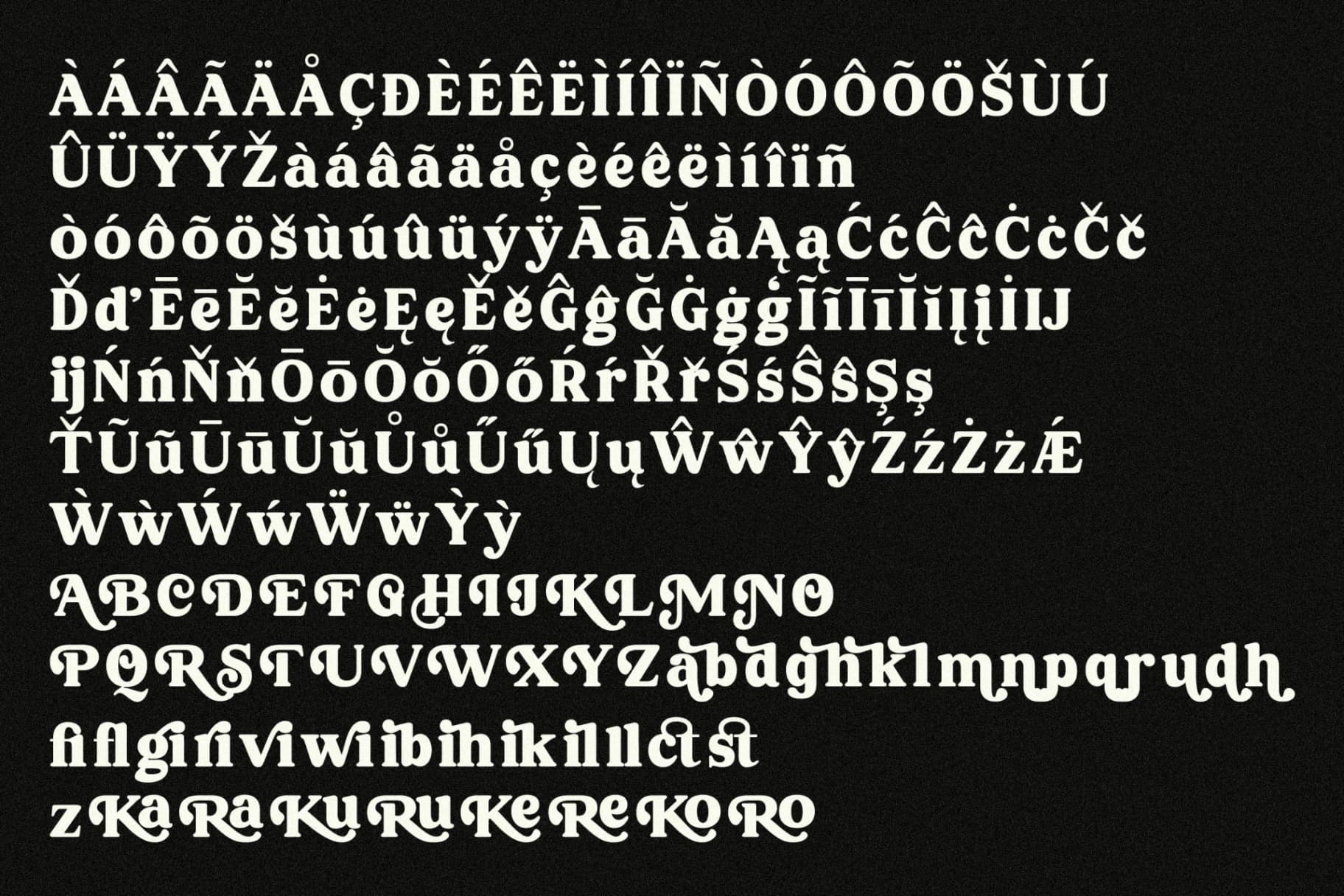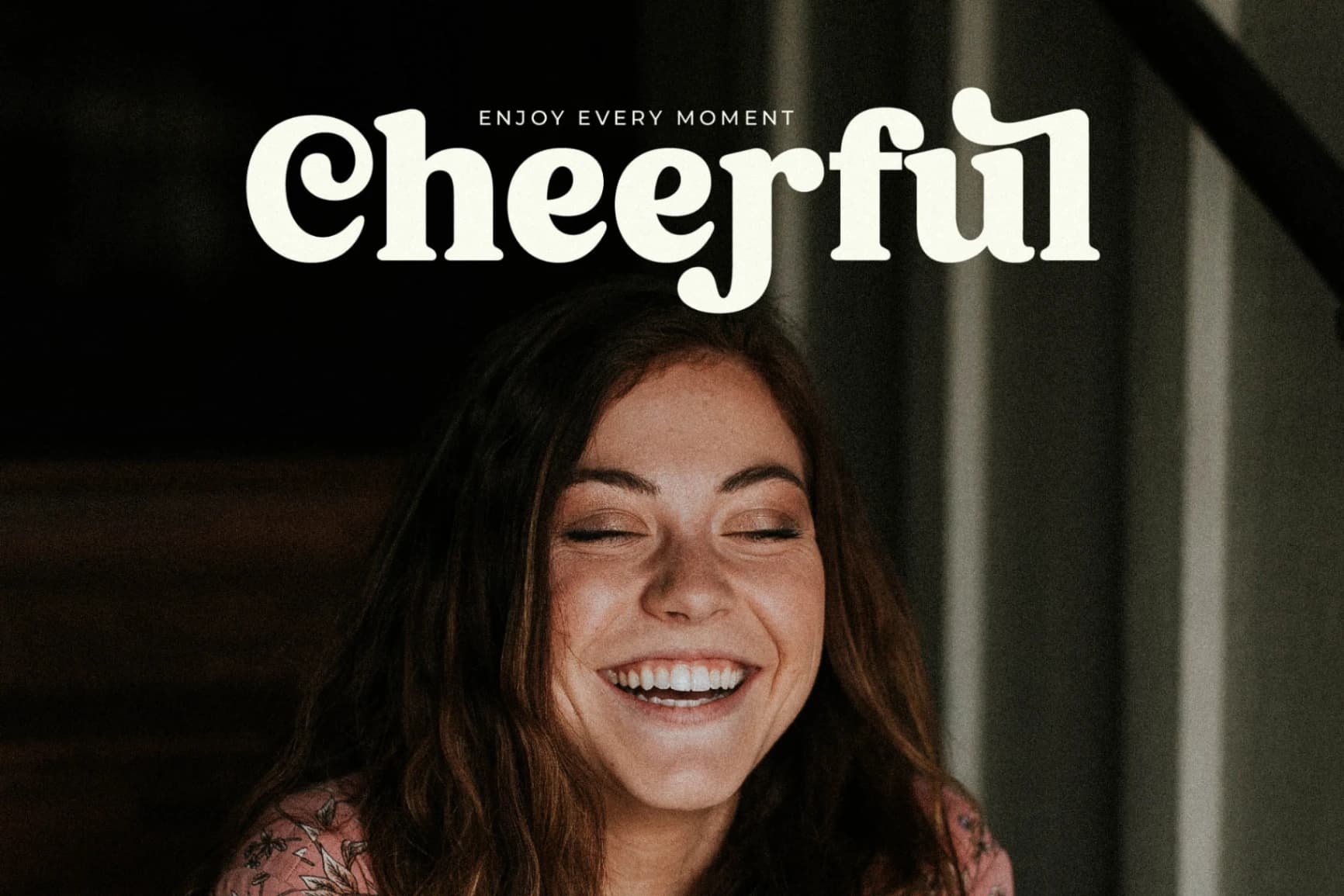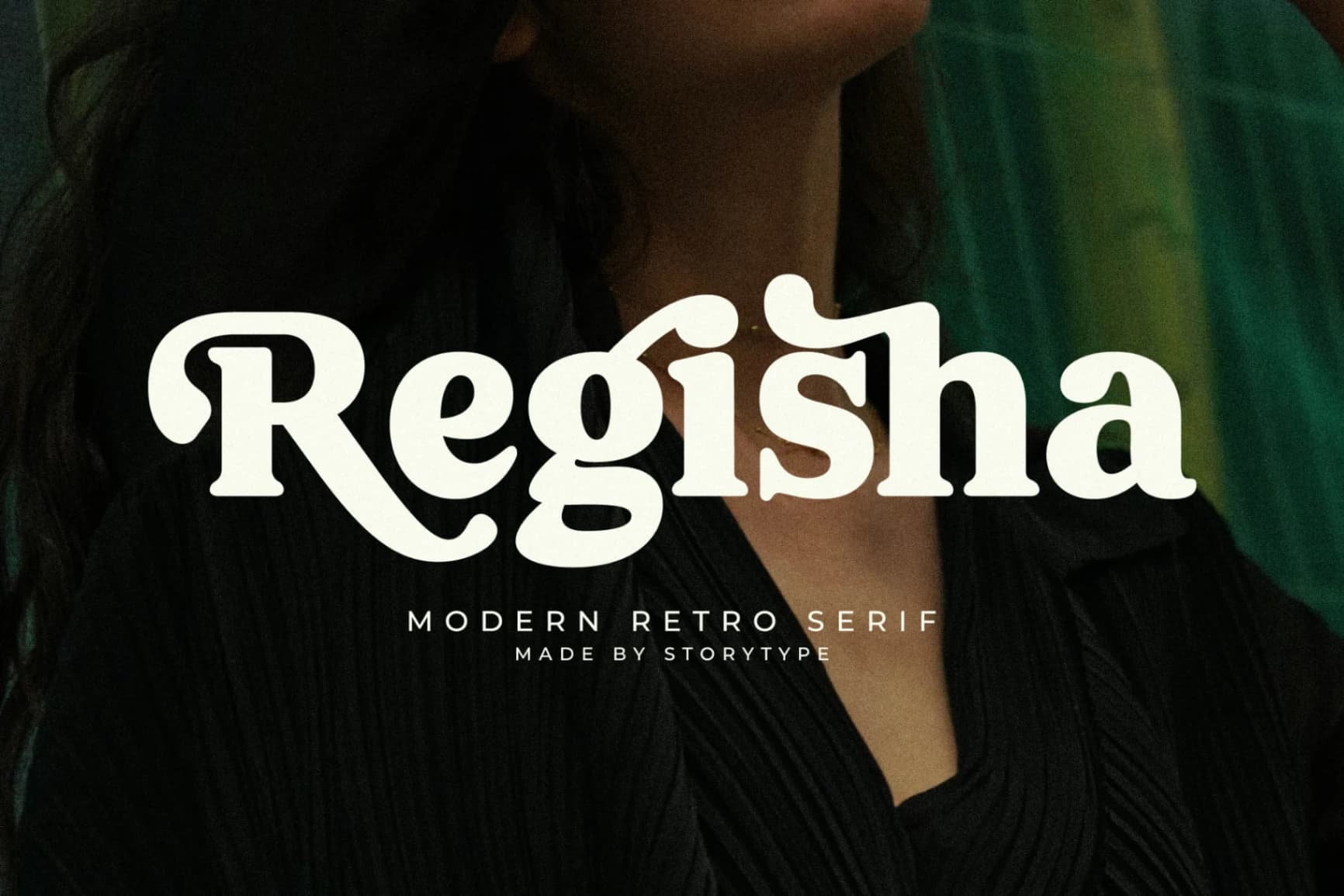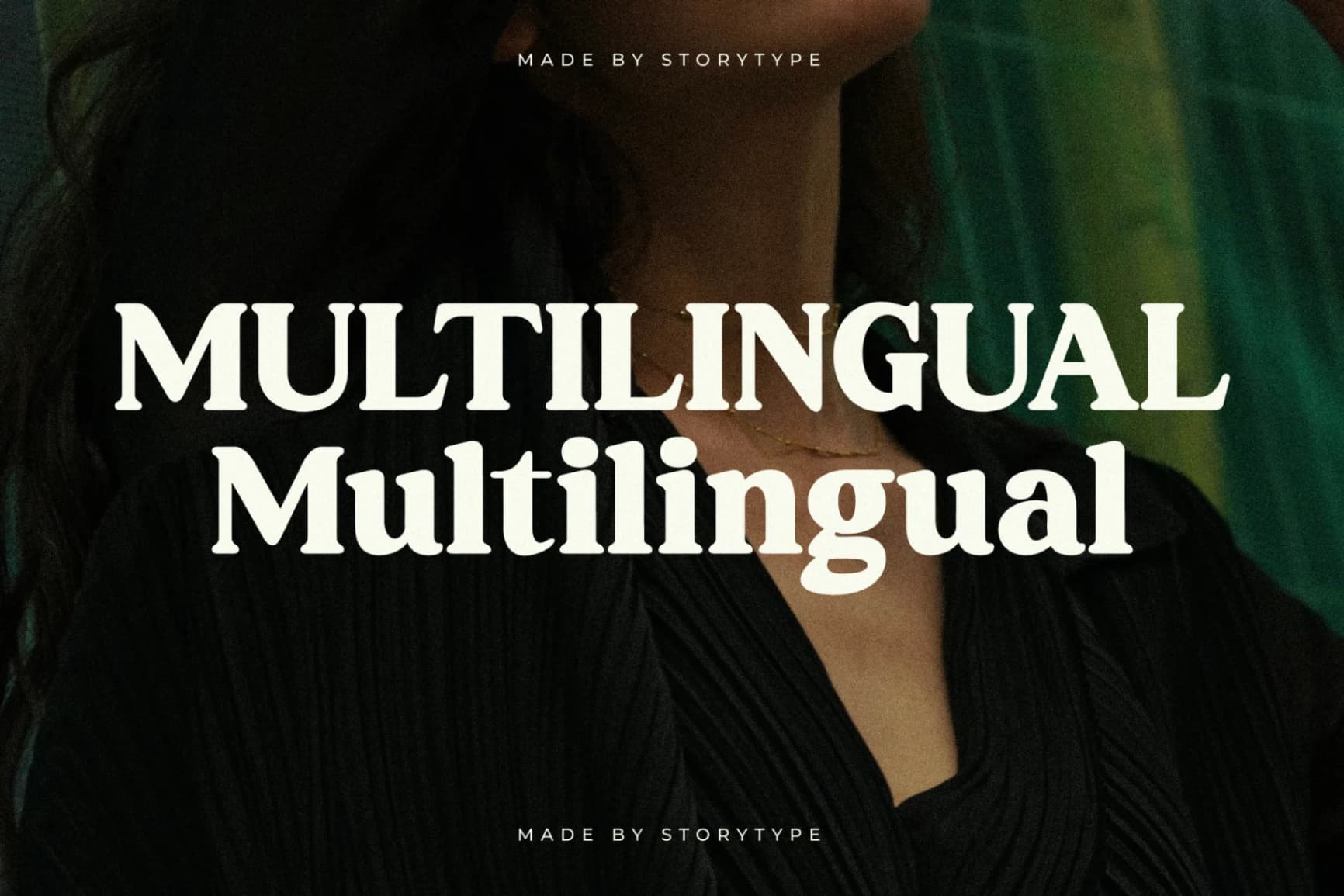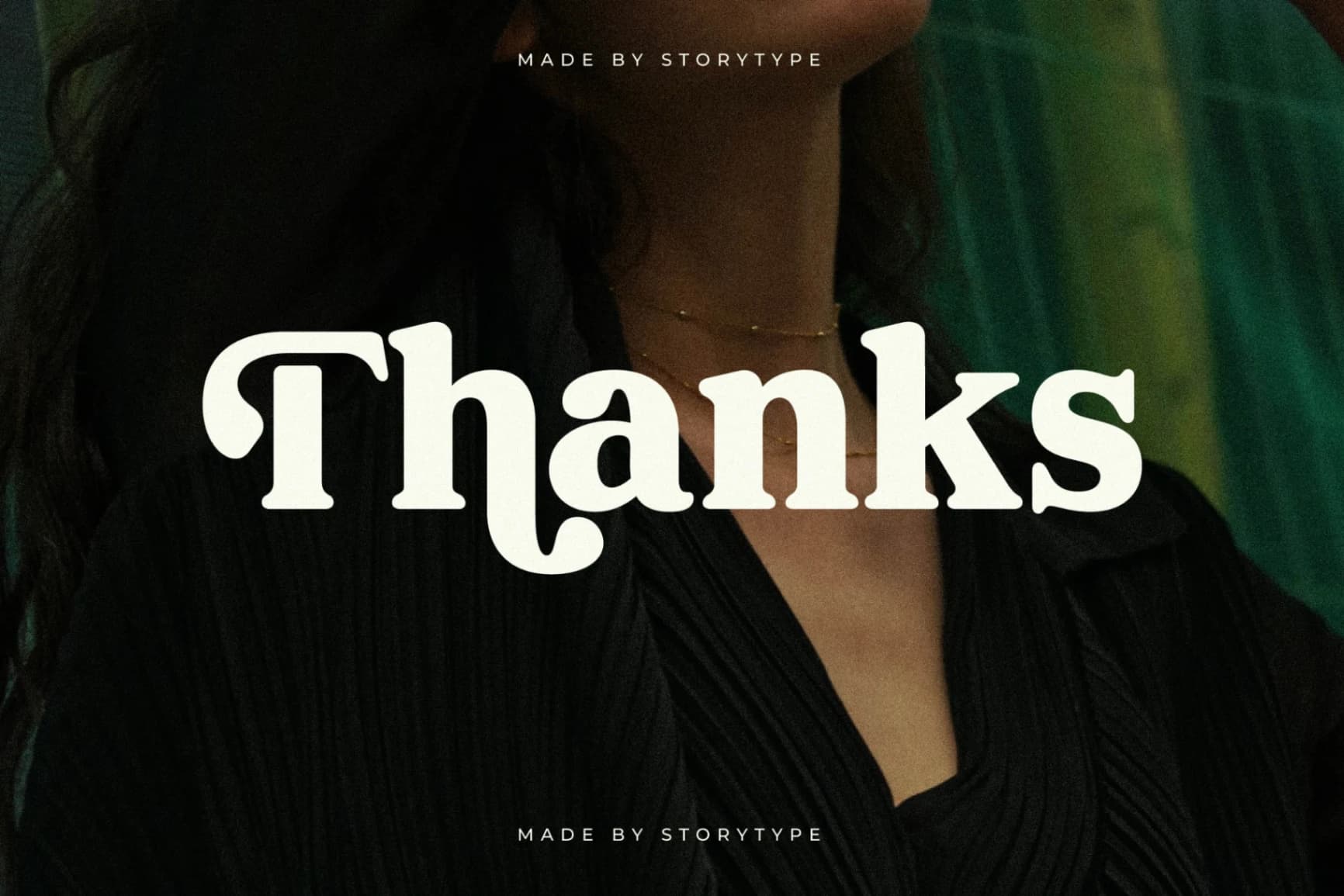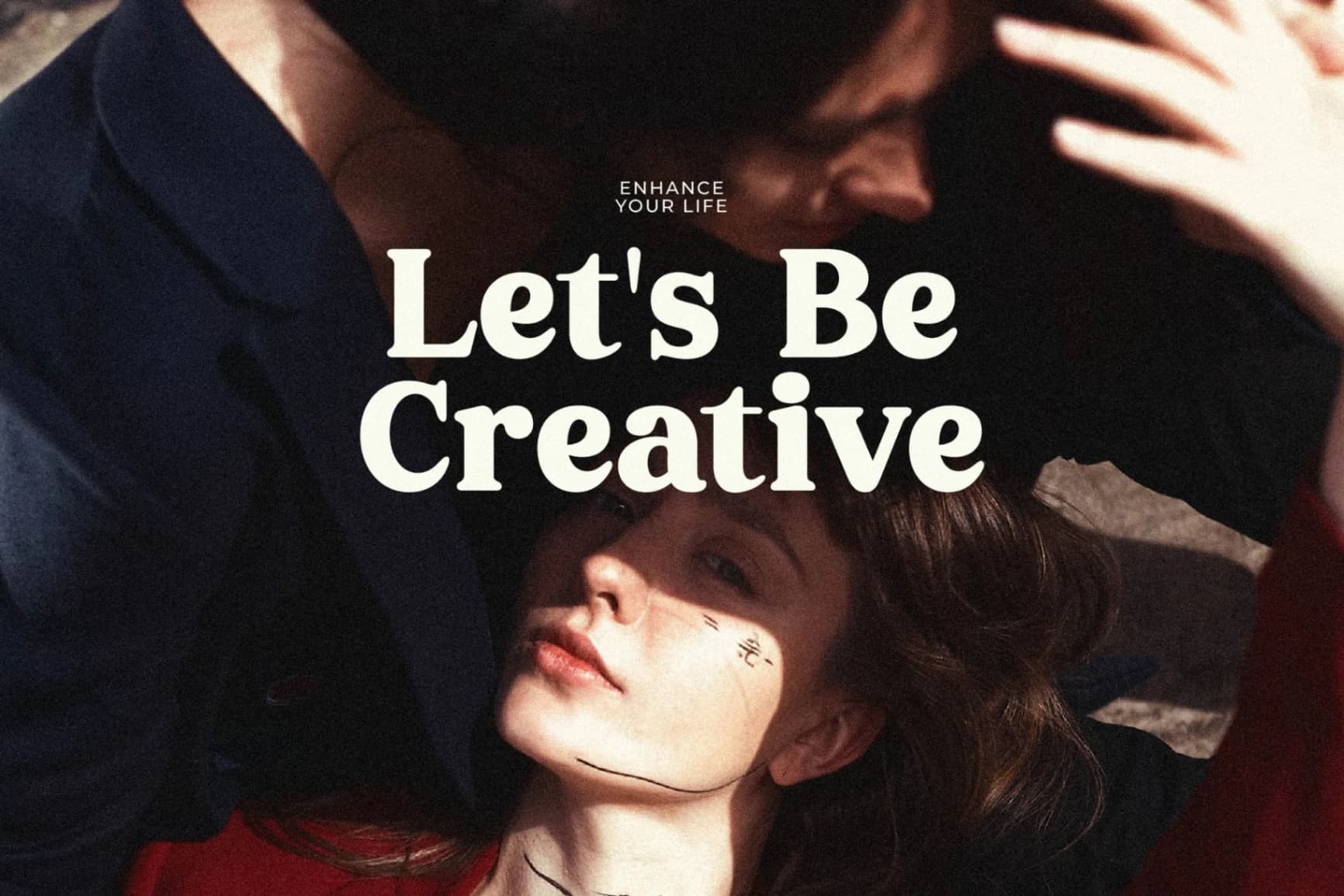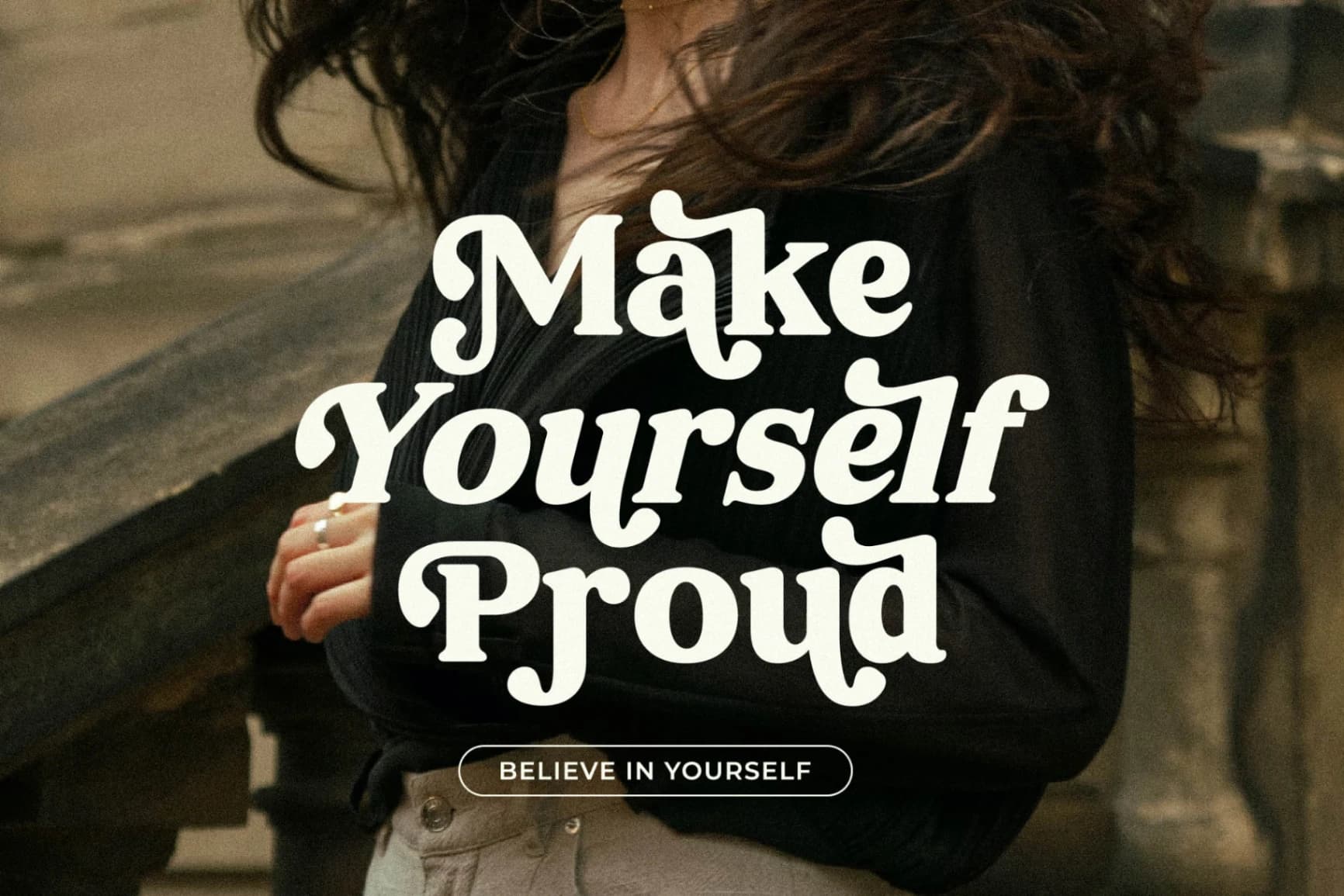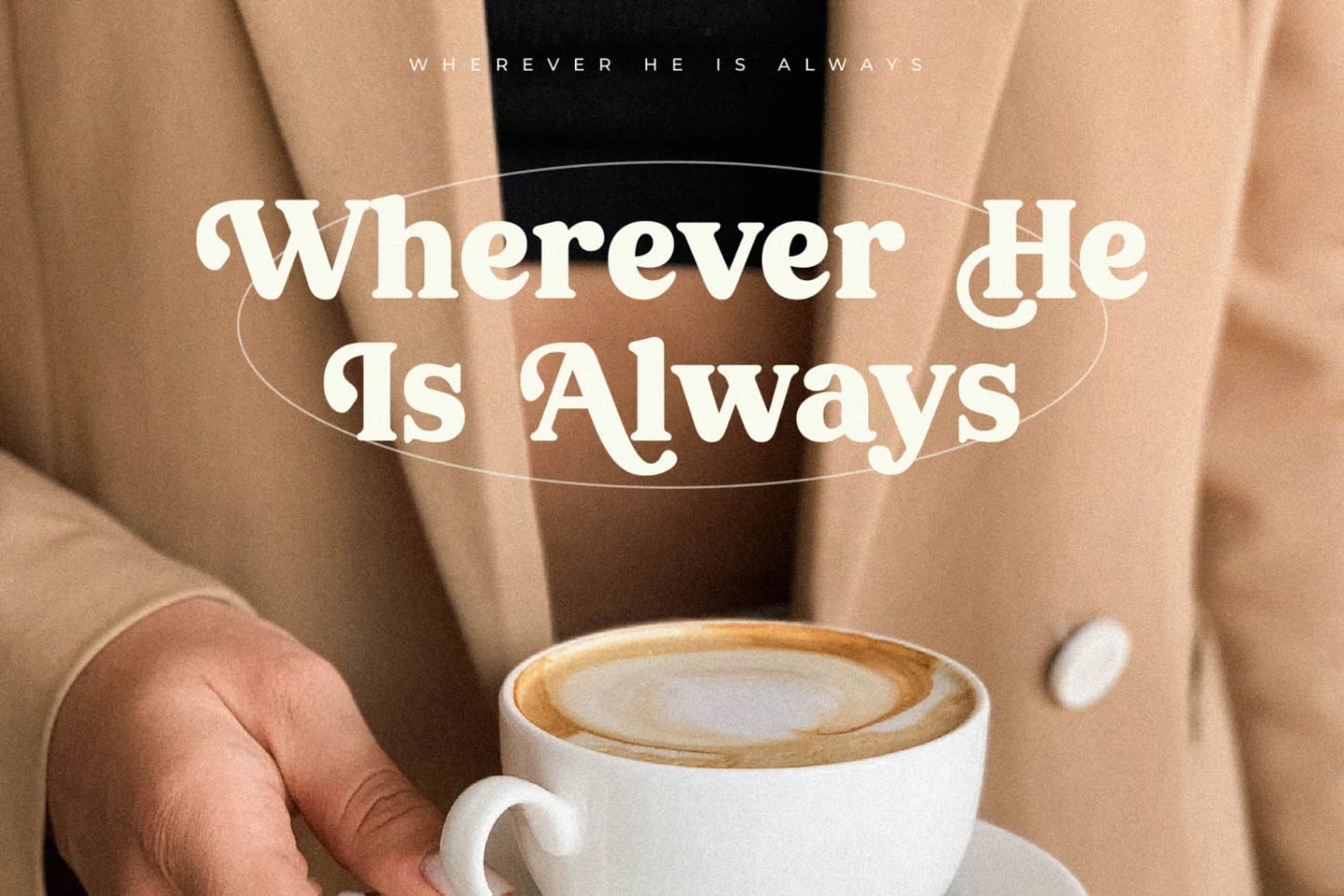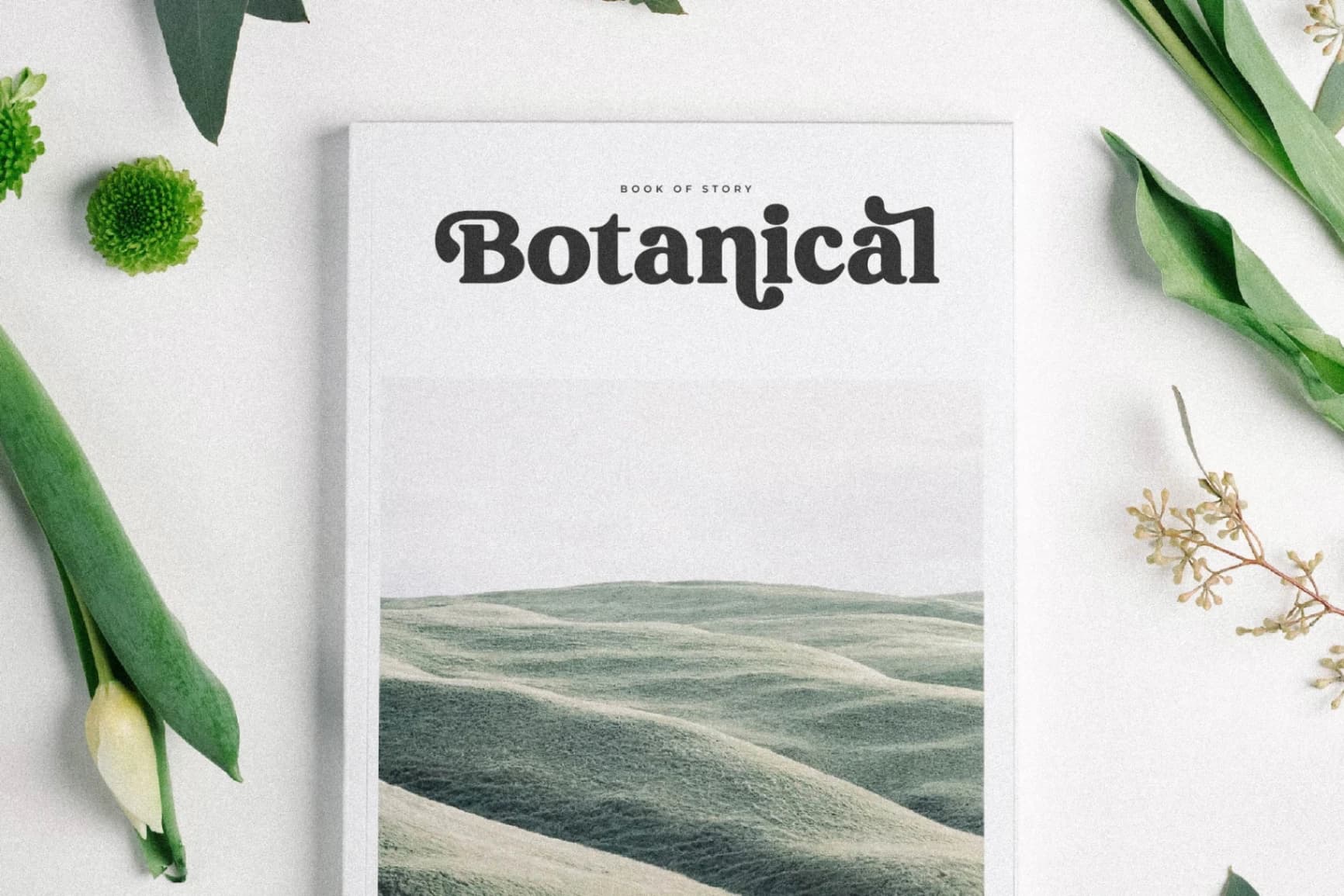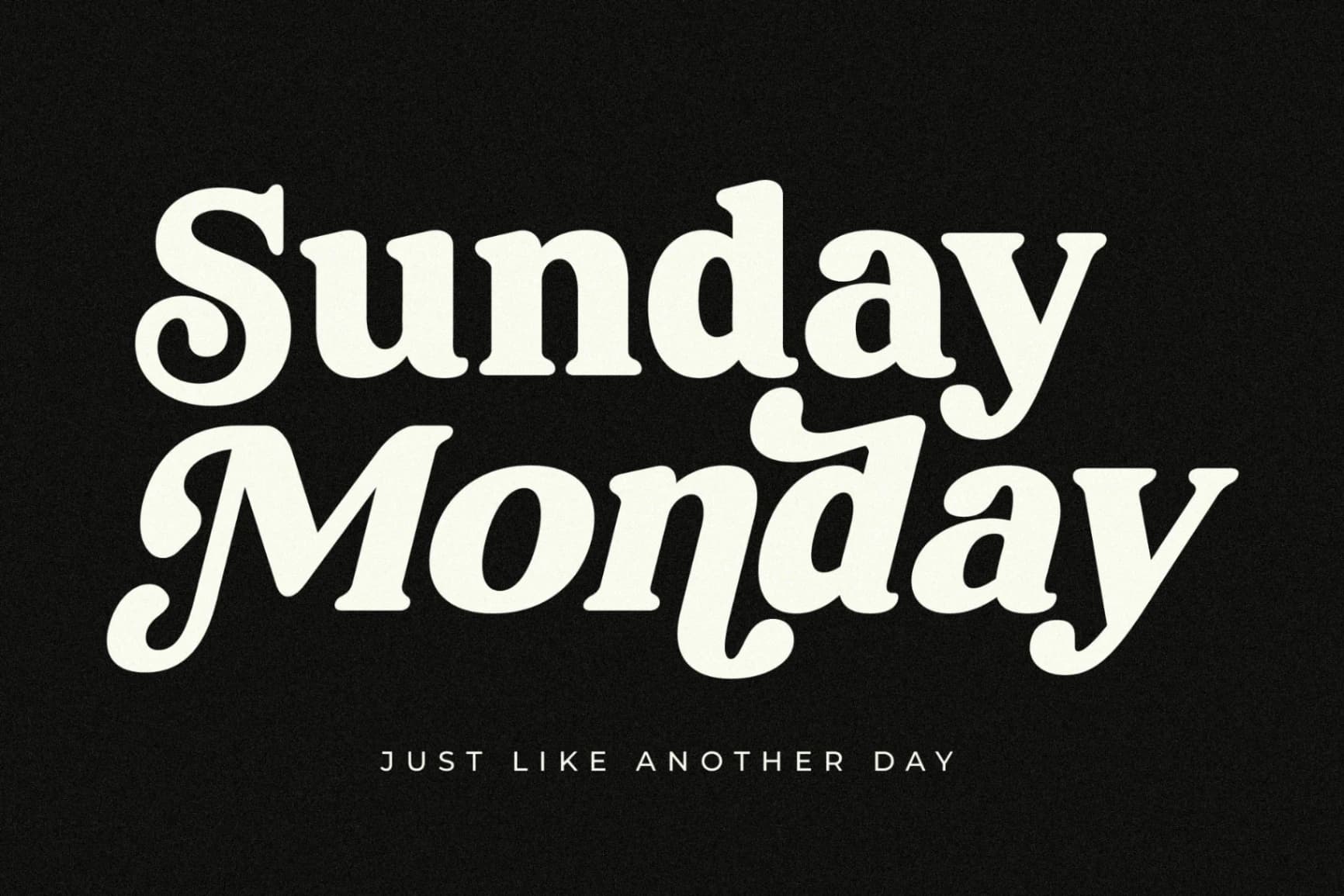
Regisha - Modern Retro Serif Font
Inject instant style and nostalgia into your next project. Regisha - Modern Retro Serif Font is a captivating display typeface engineered to command attention with its striking silhouette and fluid, expressive curves. Expertly bridging the playful aesthetics of late 60s typography with refined contemporary design, this font is characterized by its bold weight and smoothly flowing serifs. It’s the essential ingredient for designers seeking to combine vintage charm with high-impact modern typography.
Achieve a sophisticated, boundary-pushing visual identity instantly. The font’s architecture is defined by high-contrast elements and exaggerated terminals that create an almost psychedelic motion, ensuring deep character and memorability. This level of unique design detail elevates simple headlines into art statements. With its extensive multilingual support, Regisha - Modern Retro Serif Font adapts seamlessly across global markets, making it incredibly versatile for international projects that require both style and broad compatibility.
Elevate your brand from ordinary to unforgettable. Regisha - Modern Retro Serif Font is the definitive choice for projects demanding a powerful visual presence and a touch of opulent personality. It is perfect for luxury branding initiatives, sophisticated editorial design, stylish product packaging, bold social media campaigns, and any logo work requiring instant recognition. This typeface is designed to ensure your titles and key communications possess undeniable presence and unmatched flair.